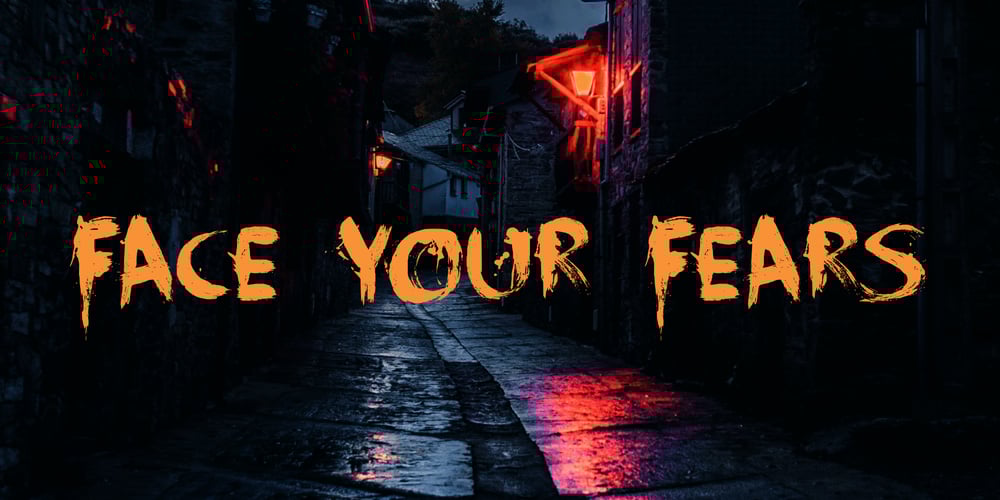
Face Your Fears Font Family was designed by David Kerkhoff and published by Hanoded. Face Your Fears contains 1 styles and family package options. Face Your Fears was created using a brush, paint and ink and a lot of paper. Due to the horror-like nature of Face Your Fears, the font looks great on websites, games and – of course – halloween cards.